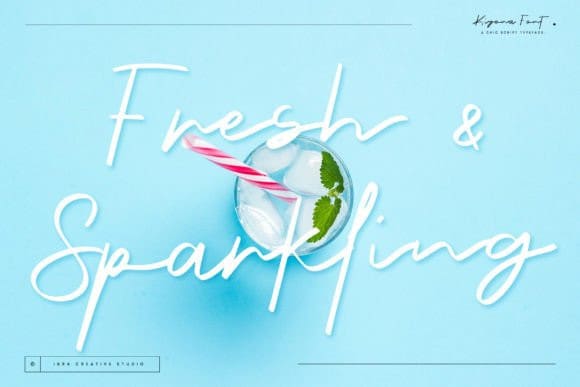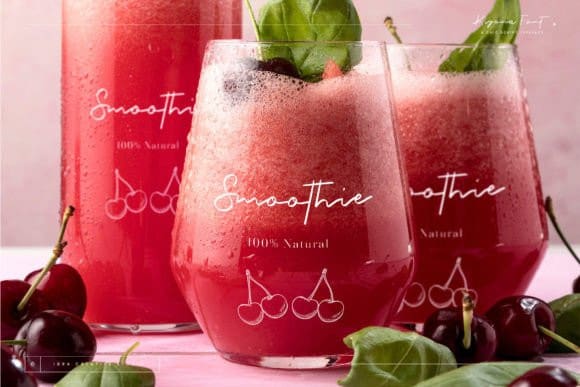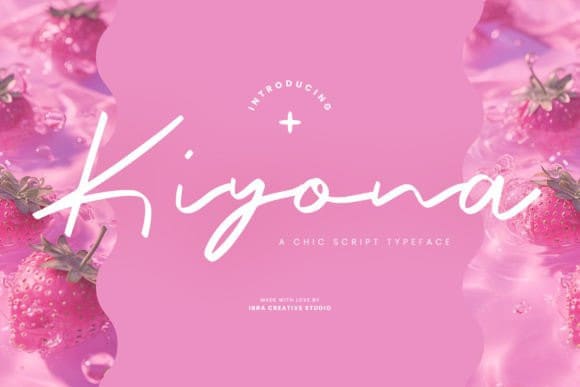
Kiyona Script Font
Kiyona Script Font an exquisite script typeface, epitomizes chic elegance with its graceful and sophisticated design. Each letter in Kiyona dances across the page with a perfect balance of fluidity and style, embodying the essence of chic handwriting. The intricate loops and curves create a timeless appeal, making it a perfect choice for projects that demand a touch of sophistication. Kiyona effortlessly blends contemporary flair with classic charm, offering a versatile and upscale typographic solution for branding, invitations, or any design endeavor that seeks to radiate a chic and refined aesthetic.